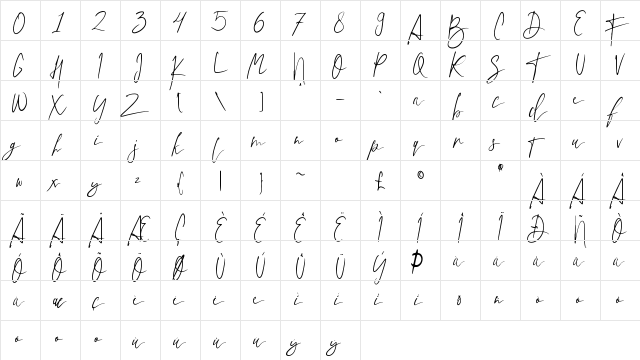
La Lune Free Script Regular
Design Context for La Lune Free Script Typeface
La Lune Free Script flows with the natural rhythm of handwritten lettering, making it ideal for designs that call for warmth and personal expression.
Font Pairing: Combine La Lune Free Script with a simple geometric sans for maximum contrast — the tension between flowing curves and clean structure is a classic typographic pairing.
Pro Tip: Pair La Lune Free Script with a clean sans-serif for supporting text. The contrast between fluid script and geometric structure creates an elegant typographic hierarchy.